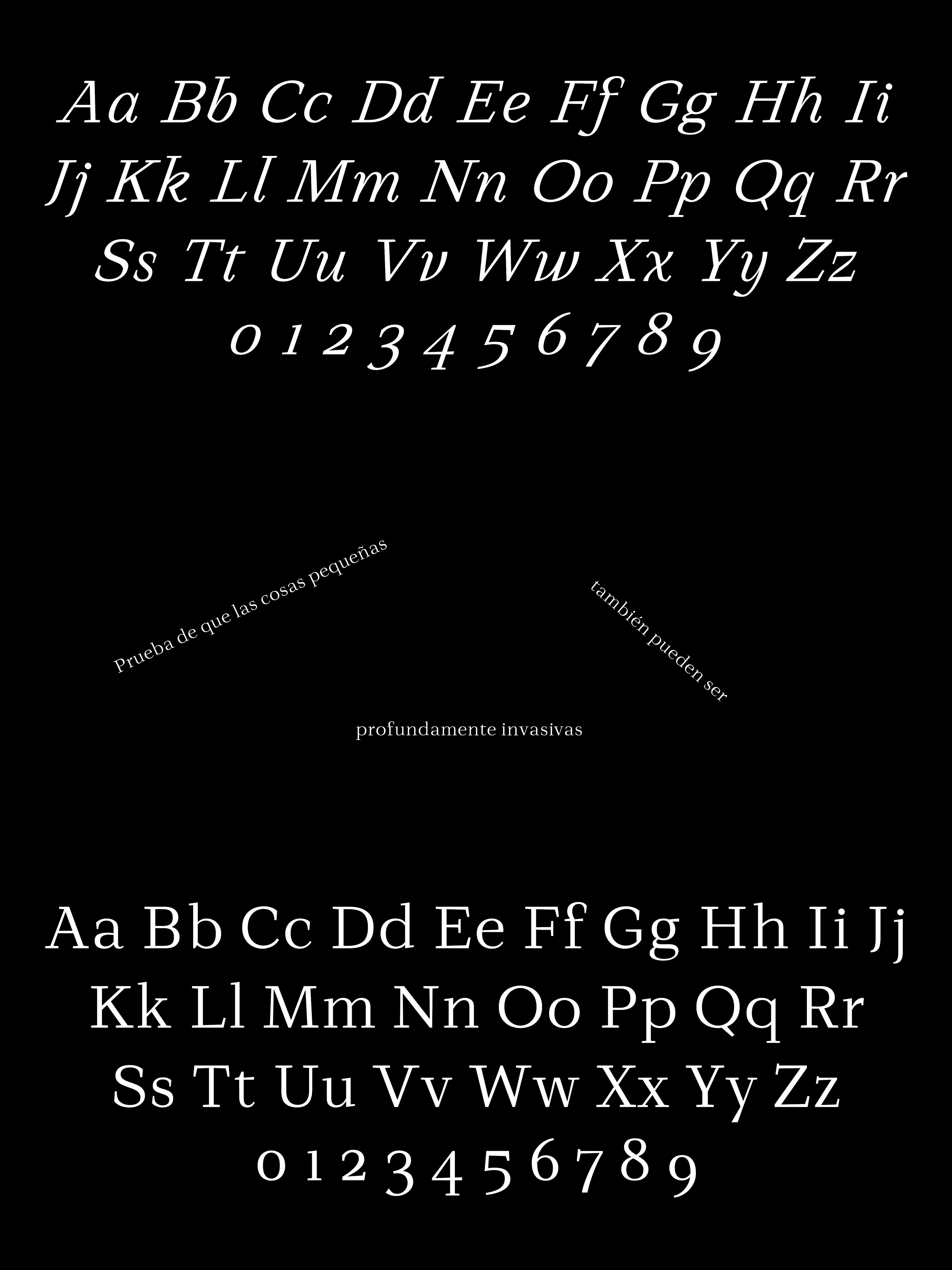
Serif Typeface Family
Typeface family
Serif Typeface Family
Typeface family
Asquilín takes its name from the Guadalajara colloquial term for small
ants—tiny, strong, and remarkably persistent creatures capable of quietly taking over entire surfaces.
Designed for long-form reading and compact sizes, Asquilín thrives where space is limited. Like the ant colonies that inspired its name, it performs collectively, remaining highly effective even at very small sizes.